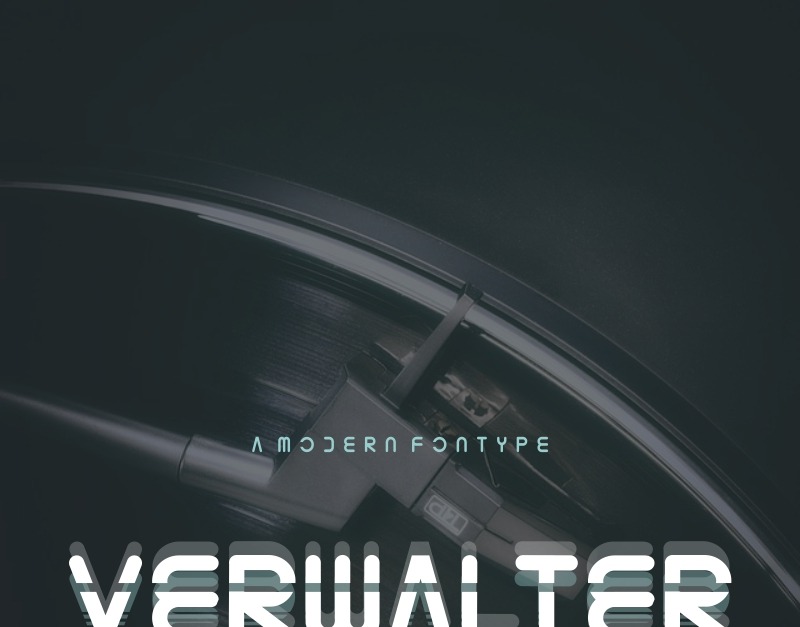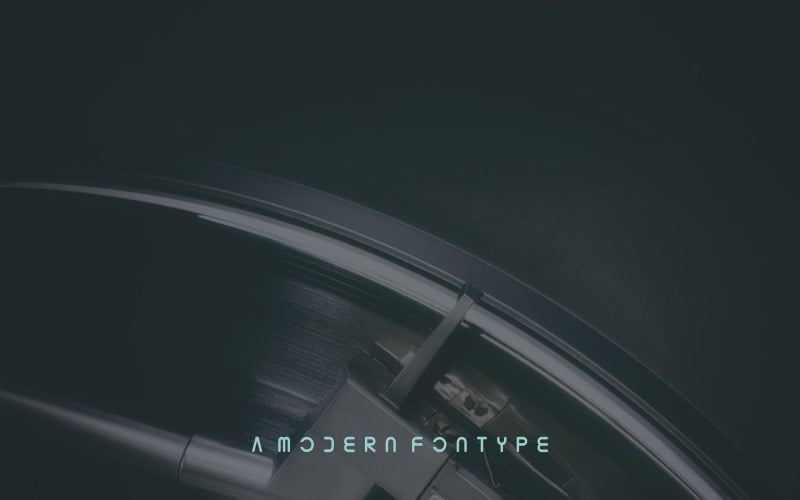
Verwalter Font
Introducing our newest font : Verwalter !
Verwalter is a display decorative futuristic techno modern font.
It contains three styles : Modern, Monospaced Laser , and Gradient 3D typeface. It also support multilangguage characters.
Great for branding, logo, stationery, business card, signage, flyer, brochure etc. There are many industries that is suitable for this font : startup, technology, marketing, insurance, bitcoin, trading, investment, etc